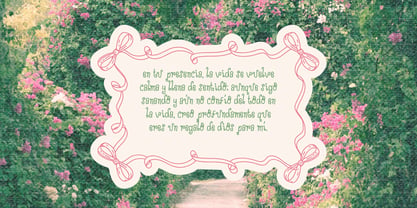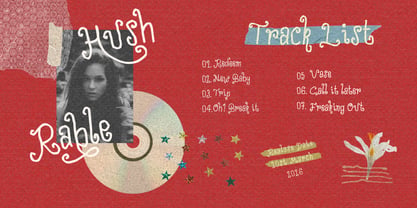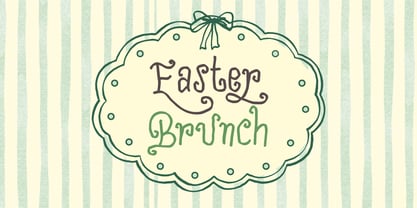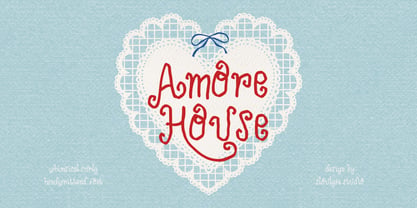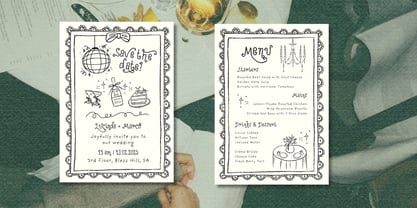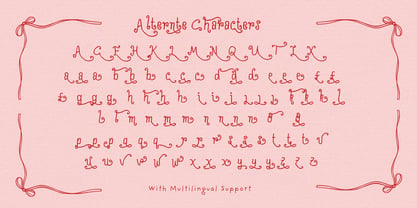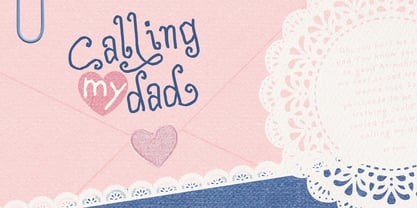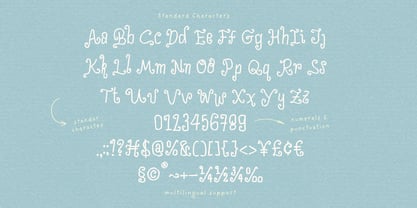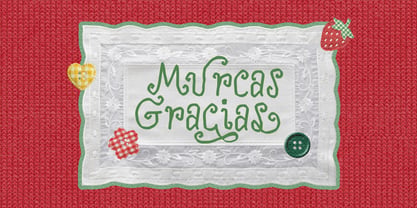
Amore House
The Amore House Font Family was designed by Amelia Dian Isnaini and published by Sloulyfe Studio. Amore House contains 1 styles. More about this family
Amore House is a whimsical handwritten font with curly strokes, soft curves, and a sweet romantic feel. The letterforms look playful and friendly, giving a cozy vintage vibe that feels warm and full of charm. Amore House works beautifully for quotes, greeting cards, posters, invitations, packaging text, social media visuals, and creative branding with a gentle romantic touch. Features :Uppercase & lowercase, Numbers and punctuation, Alternates or Ligatures, Multilingual support & PUA encoded